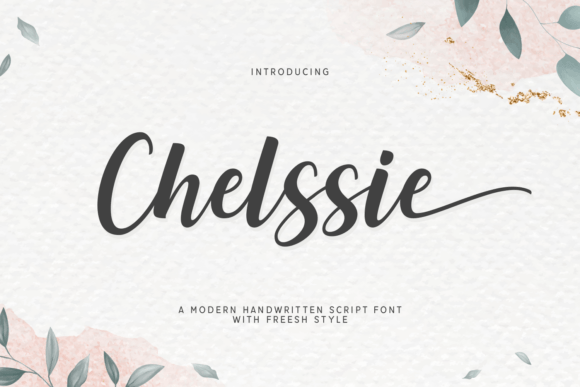
Chelssie Font: Elevate Your Designs with a Modern Handwritten Script
In the world of typography, fonts play a crucial role in conveying the tone and personality of a brand, design, or message. Among the numerous fonts available, Chelssie Font stands out as a modern handwritten script font that exudes freshness and elegance. Its smooth curves and stylish flow make it a versatile choice for various design applications, including branding, invitations, social media designs, and more.
What is Chelssie Font?
Chelssie Font is a contemporary handwritten script font designed to bring a touch of sophistication and refinement to your designs. Its delicate yet bold strokes create a refined and timeless aesthetic, making it perfect for a wide range of creative projects. Whether you’re looking to create a stunning wedding theme, a beautiful greeting card, or a personal project, Chelssie Font is an excellent choice.
The font’s smooth curves and flowing lines give it a natural and effortless look, making it easy to read and visually appealing. Chelssie Font is designed to be versatile, allowing you to use it for various design applications, from digital media to print materials.
Key Features of Chelssie Font
- Modern Handwritten Script: Chelssie Font is a modern take on traditional handwritten scripts, with a fresh and elegant twist.
- Smooth Curves and Stylish Flow: The font features smooth curves and a stylish flow, making it easy to read and visually appealing.
- Delicate yet Bold Strokes: Chelssie Font’s delicate yet bold strokes create a refined and timeless aesthetic.
- Versatile: The font is suitable for various design applications, including branding, invitations, social media designs, and more.
- Contemporary and Natural Charm: Chelssie Font brings a touch of contemporary and natural charm to your designs, making them stand out.
Uses of Chelssie Font
Chelssie Font is a versatile font that can be used for a wide range of design applications. Here are some of the most popular uses of Chelssie Font:
- Wedding Themes: Chelssie Font is perfect for wedding themes, including wedding invitations, ceremony programs, and wedding stationery.
- Greeting Cards: The font is suitable for creating beautiful greeting cards for special occasions, such as birthdays, anniversaries, and holidays.
- Branding: Chelssie Font can be used for branding applications, including logos, business cards, and letterheads.
- Social Media Designs: The font is ideal for social media designs, including Facebook posts, Instagram stories, and Twitter headers.
- Personal Projects: Chelssie Font can be used for personal projects, such as scrapbooking, journaling, and crafting.
Benefits of Using Chelssie Font
Using Chelssie Font offers several benefits, including:
- Unique and Eye-catching Designs: Chelssie Font helps create unique and eye-catching designs that stand out from the crowd.
- Easy to Read: The font is easy to read, making it perfect for designs that require clear communication.
- Versatile: Chelssie Font is versatile and can be used for various design applications.
- Time-saving: The font saves time and effort, as it can be used to create professional-looking designs quickly.
- Cost-effective: Chelssie Font is a cost-effective solution for designers and businesses looking for high-quality fonts.
In conclusion, Chelssie Font is a modern handwritten script font that exudes freshness and elegance. Its smooth curves and stylish flow make it a versatile choice for various design applications. With its delicate yet bold strokes, Chelssie Font creates a refined and timeless aesthetic, perfect for wedding themes, greeting cards, branding, and more. Bring your creative ideas to life with Chelssie Font and elevate your designs to the next level.
- What is Chelssie Font? Chelssie Font is a modern handwritten script font designed for various design applications.
- Is Chelssie Font suitable for digital media? Yes, Chelssie Font is suitable for digital media, including social media designs and websites.
- Can I pair Chelssie Font with other fonts? Yes, Chelssie Font can be paired with other fonts to create a unique and visually appealing design.